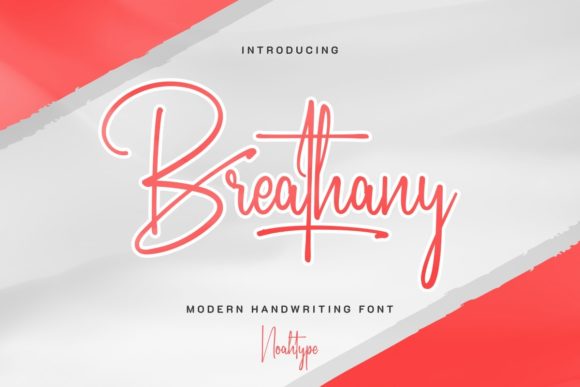
The Elusive Perfect Font: My Journey with Breathany
I still remember the design project that had me on the hunt for the perfect font. I was working on a branding project for a luxury client, and I needed a font that exuded elegance and sophistication. Hours turned into days, and days into weeks, as I scrolled through font after font, but nothing seemed quite right. That was until I stumbled upon Breathany, a classic signature handwritten font that has since become a staple in my design toolkit.
An Honest Review of Breathany
So, what makes Breathany so special? Let’s dive into the good stuff and, of course, a few quirks I’ve encountered.
• ✨ Elegant and Modern Characters: Breathany strikes the perfect balance between classic and contemporary. Its characters are carefully crafted to look like they were written with a pen, giving your designs a personal touch.
• ✅ PUA Encoded for Easy Access: Being PUA encoded means that all the glyphs and swashes are at your fingertips. No more tedious searching for the perfect alternate character!
• ✅ Natural and Free-Flowing: The font’s design ensures that it looks great in any context, from headings to body text. It’s versatile and can elevate any design project.
While Breathany is an amazing font, there are a couple of things to keep in mind:
• ⚠️ Some Alternates Can Be Finicky: Occasionally, certain alternate characters or swashes might not display as expected in certain software. A quick workaround or manual adjustment usually does the trick.
• 🤔 Not Ideal for Body Text: While Breathany is incredibly beautiful, its elegance shines brightest in headings and titles. For longer body text, a more straightforward font might be more readable.
Breathany Alternatives: Exploring Similar Fonts
If you’re looking for something similar or just want to explore your options, here are a few fonts that share a similar vibe:
• Lobster: A more whimsical take on the elegant script, great for when you want to add a bit of flair.
• Pacifico: Offers a more relaxed, beachy vibe while still maintaining elegance.
• Great Vibes: A bit more adventurous, with swashes that add a dynamic touch to your designs.
• Alex Brush: For those looking for a more artistic, hand-painted feel.
The Story Behind Breathany: Designer Inspiration
While the exact story behind Breathany’s creation might not be well-documented, it’s clear that the designer aimed to capture the essence of handwritten elegance with a modern twist. Fonts like Breathany often come from a place of passion, where typographers seek to blend traditional techniques with digital innovation.
Author NoahType
Q: Is Breathany suitable for body text?
A: While Breathany is stunning, it’s best used for headings and titles. For longer texts, consider a more readable font.